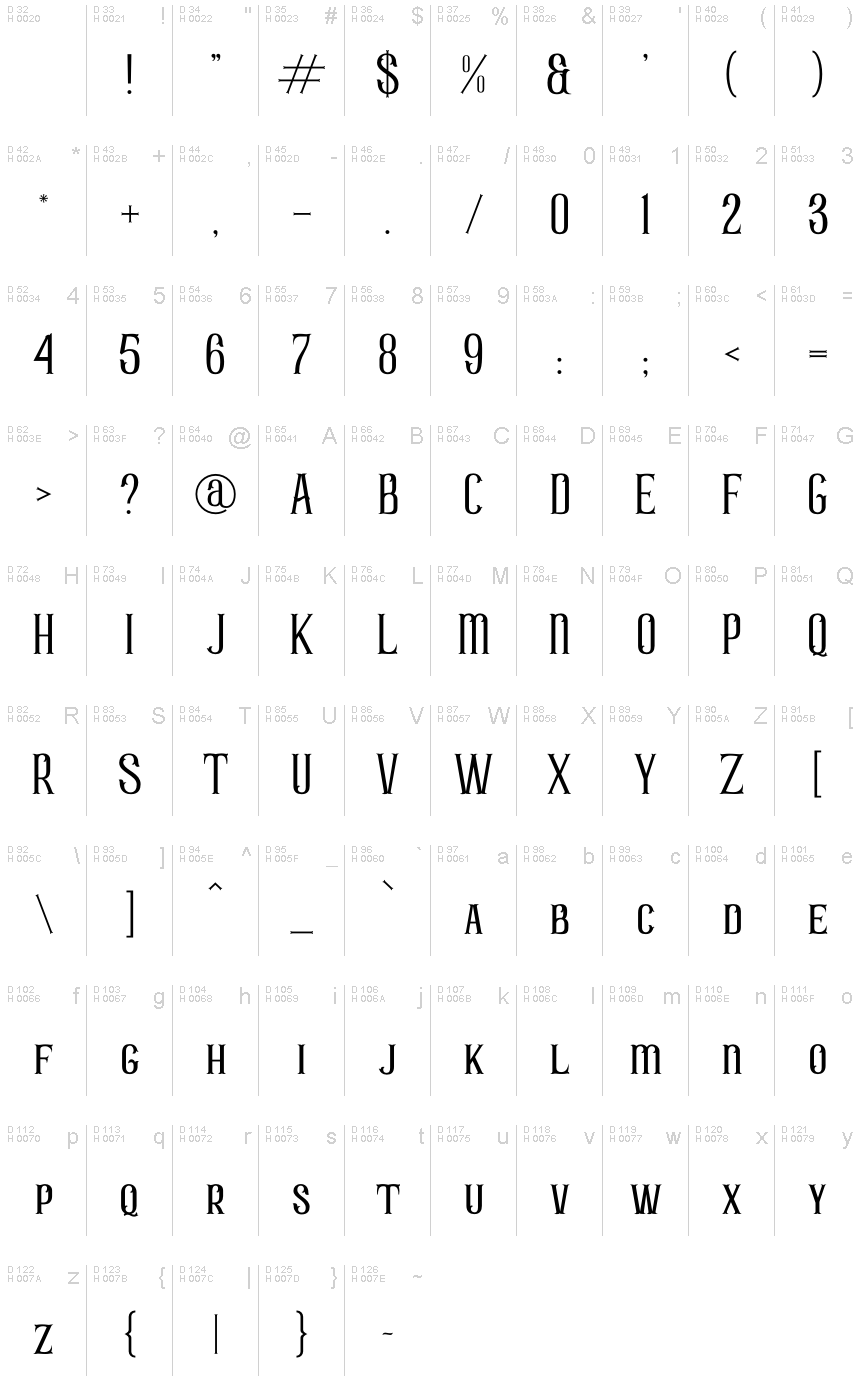
Hercules
Hercules font is a retro display typeface that values old-school design principles. Dedicated to taking your designs back in time, the serif font features narrow letters made of structured lines with slightly round edges. This provides a classic touch that is only added to by the multiple ornamental details showcased each letter. What starts as a simple tool can quickly evolve each project into an outstanding one full of contrasts and visual interest.
Achieve stunning results for countless medium and large-scale design applications including signage, posters, book covers, print invitations, titles within publications among others.